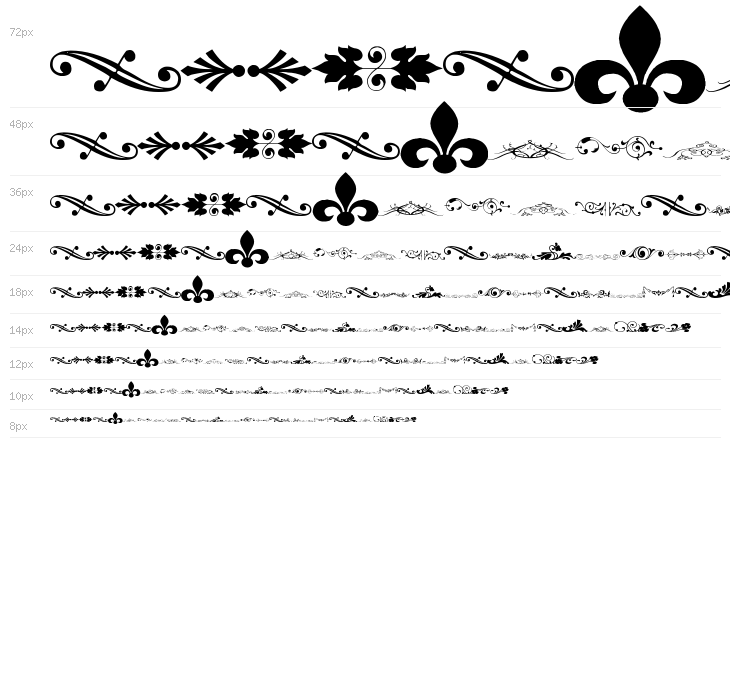
Vintage Decorative Signs 12 Font
Vintage Decorative Signs 12 Description
A collection of ornate, vintage-inspired decorative borders featuring swirling flourishes, floral motifs, and intricate embellishments, rendered in bold and delicate black lines for an elegant, classic appearance.
| Overall Style | Vintage, Decorative, Ornate |
| Use Case | Borders, Dividers, Decorative Accents |
| Proposed Projects | Wedding invitations, certificates, greeting cards, vintage posters, decorative signage, scrapbooking, and branding for luxury or heritage products. |